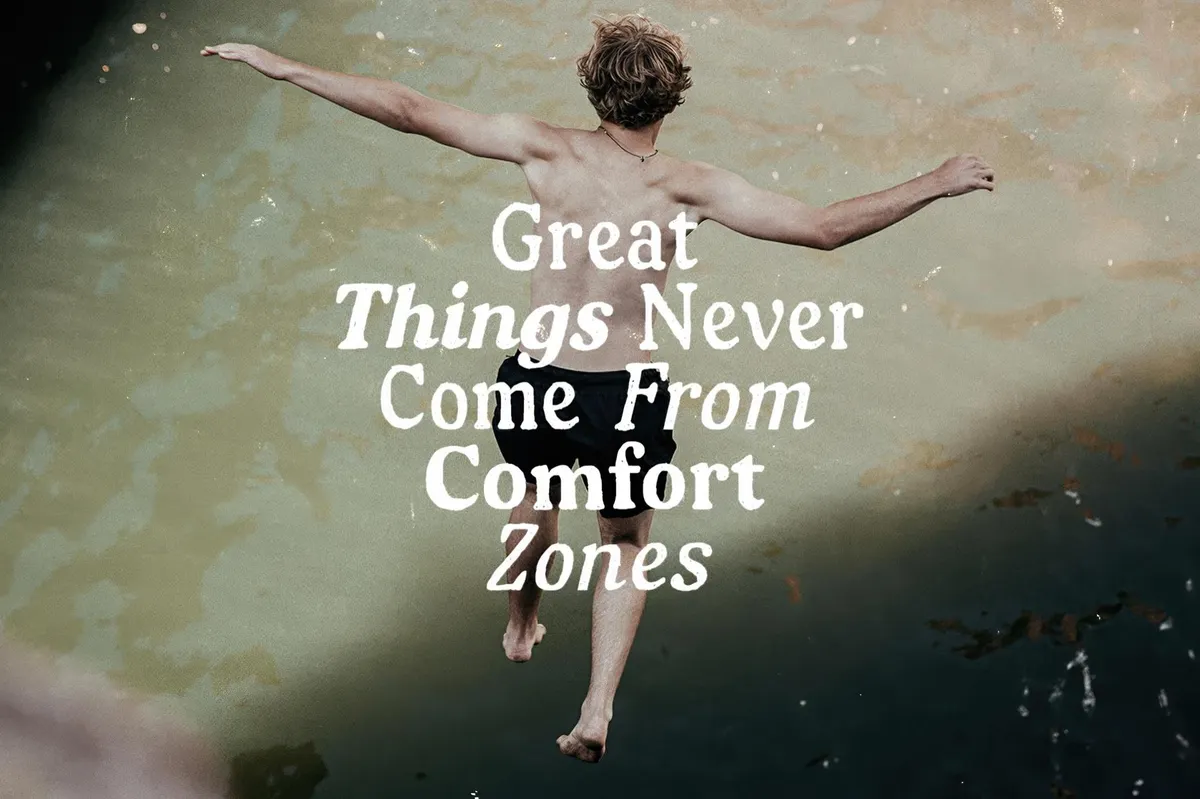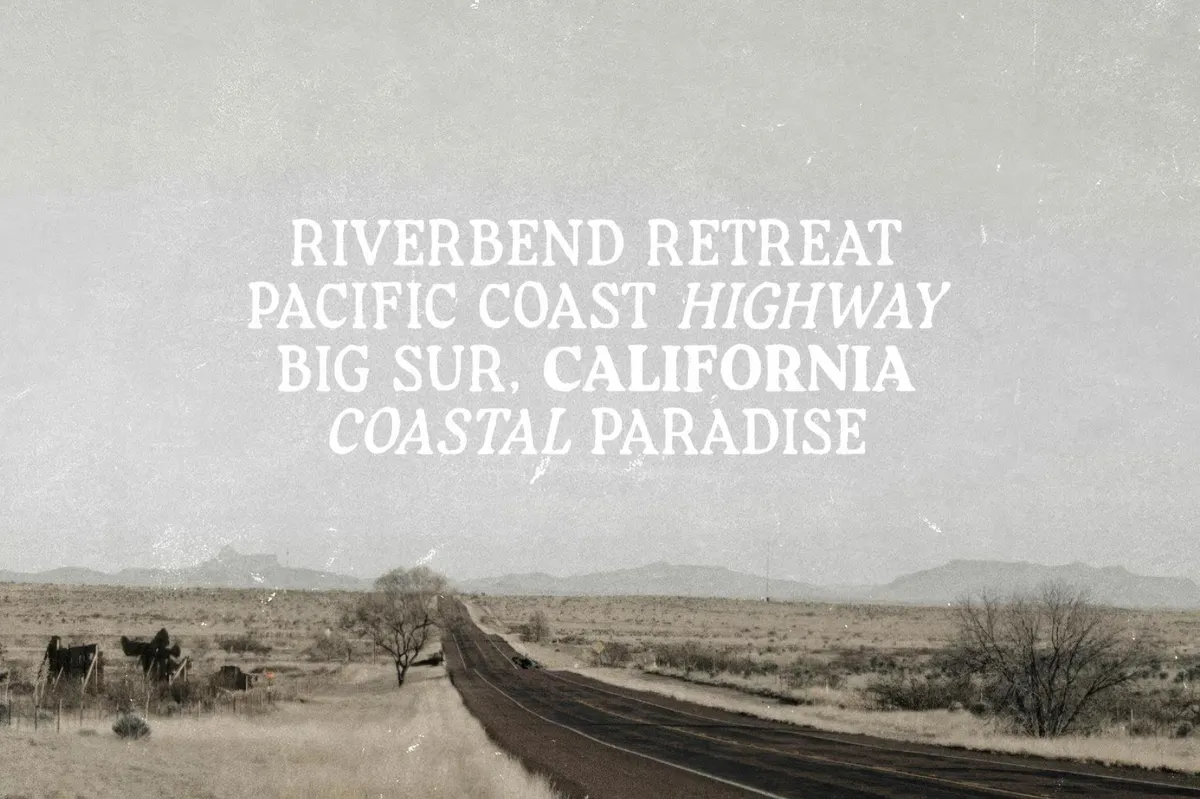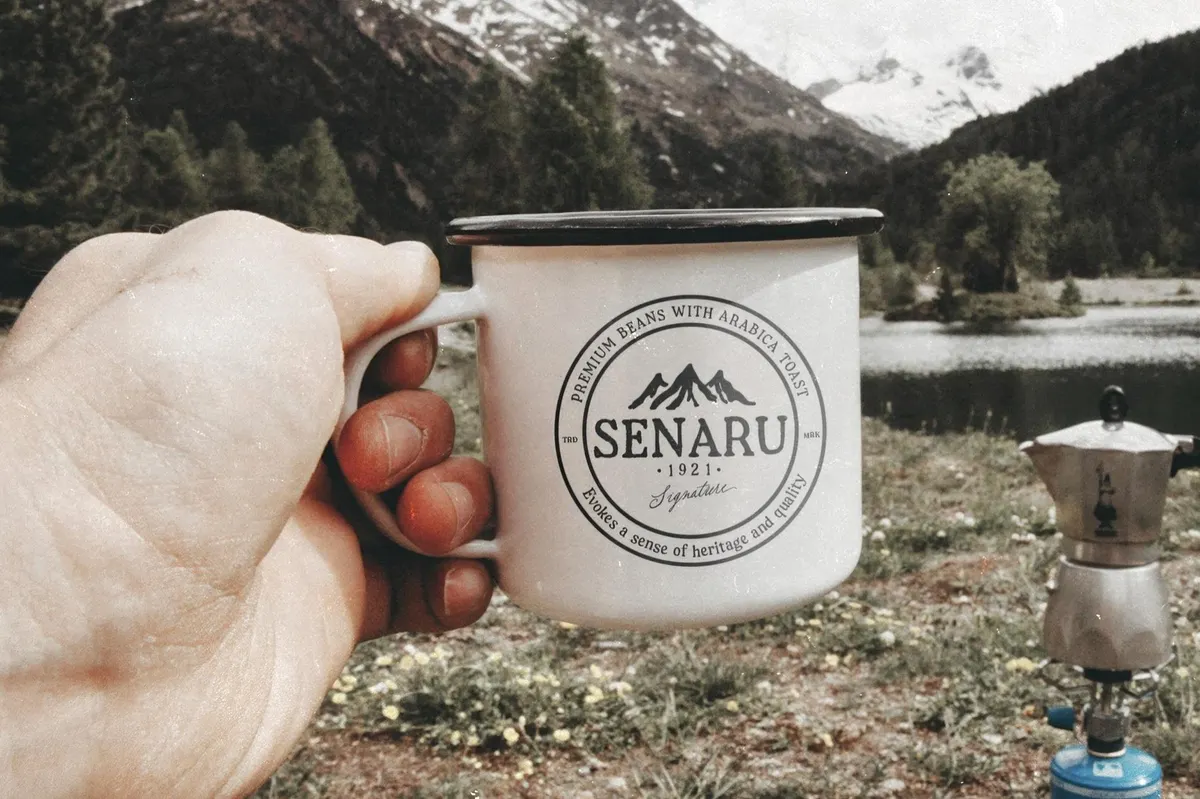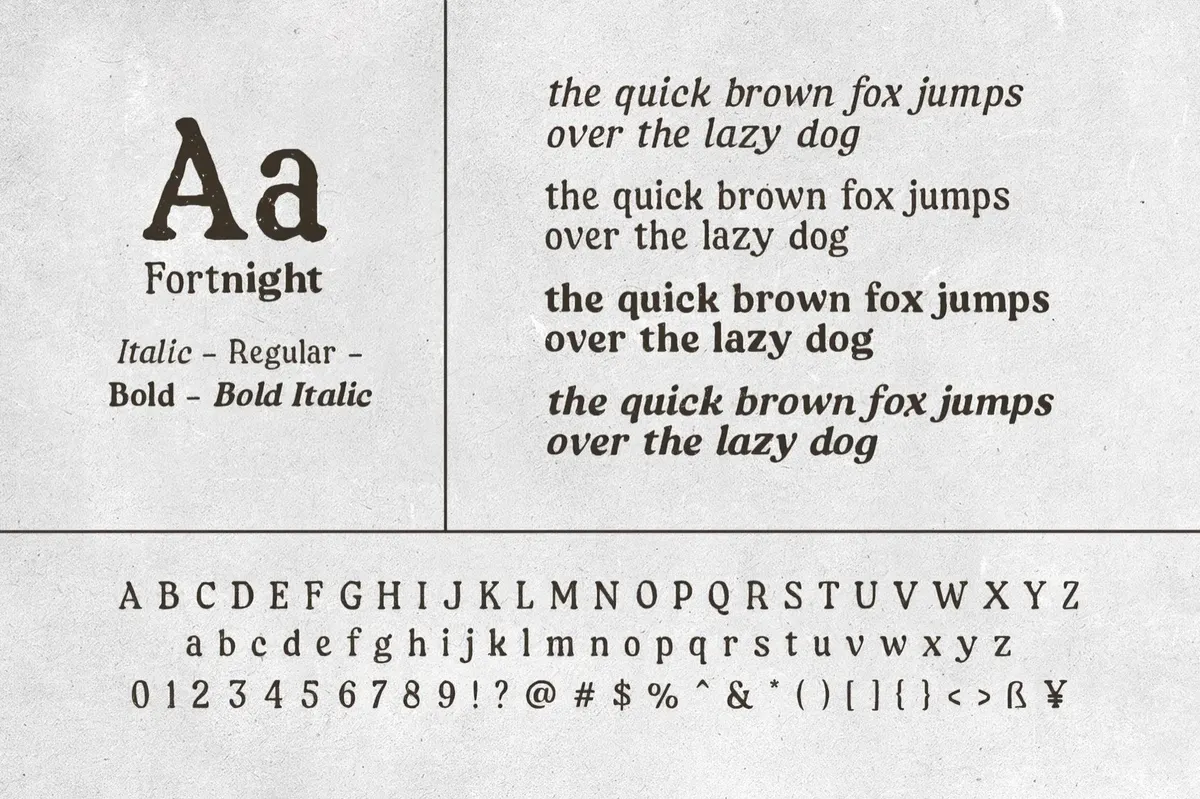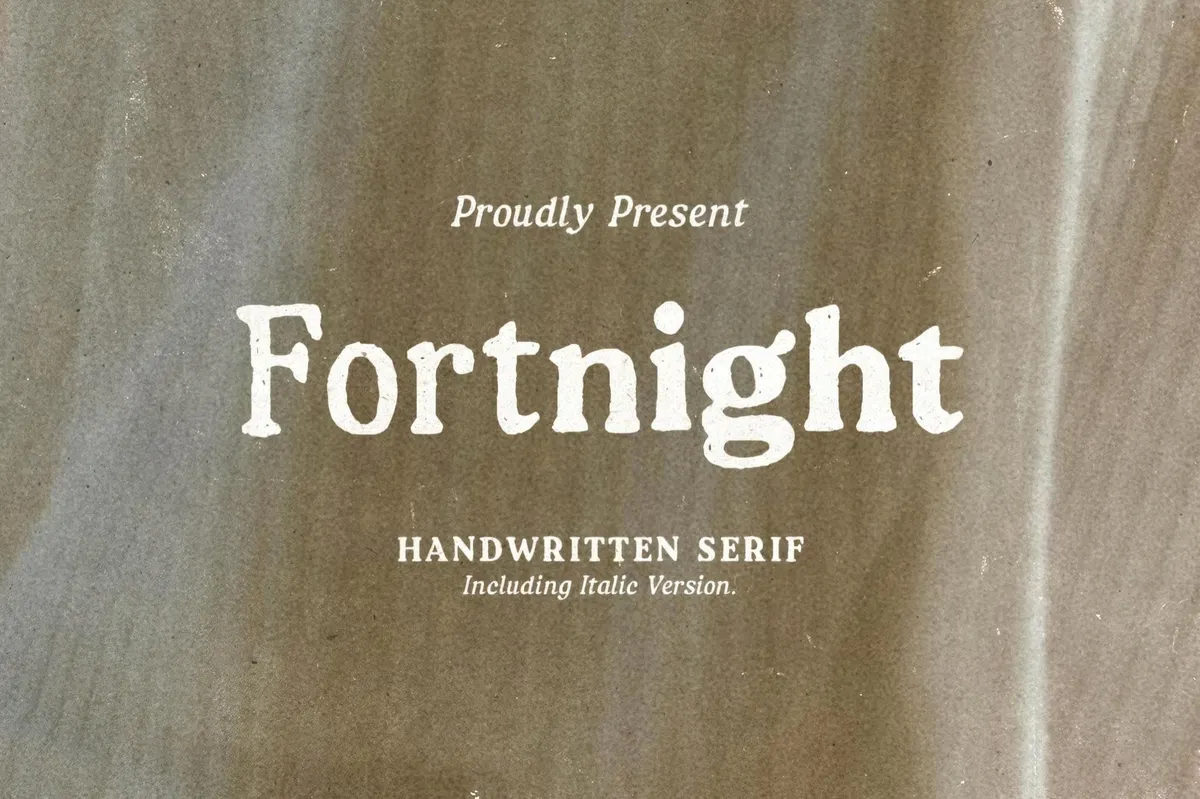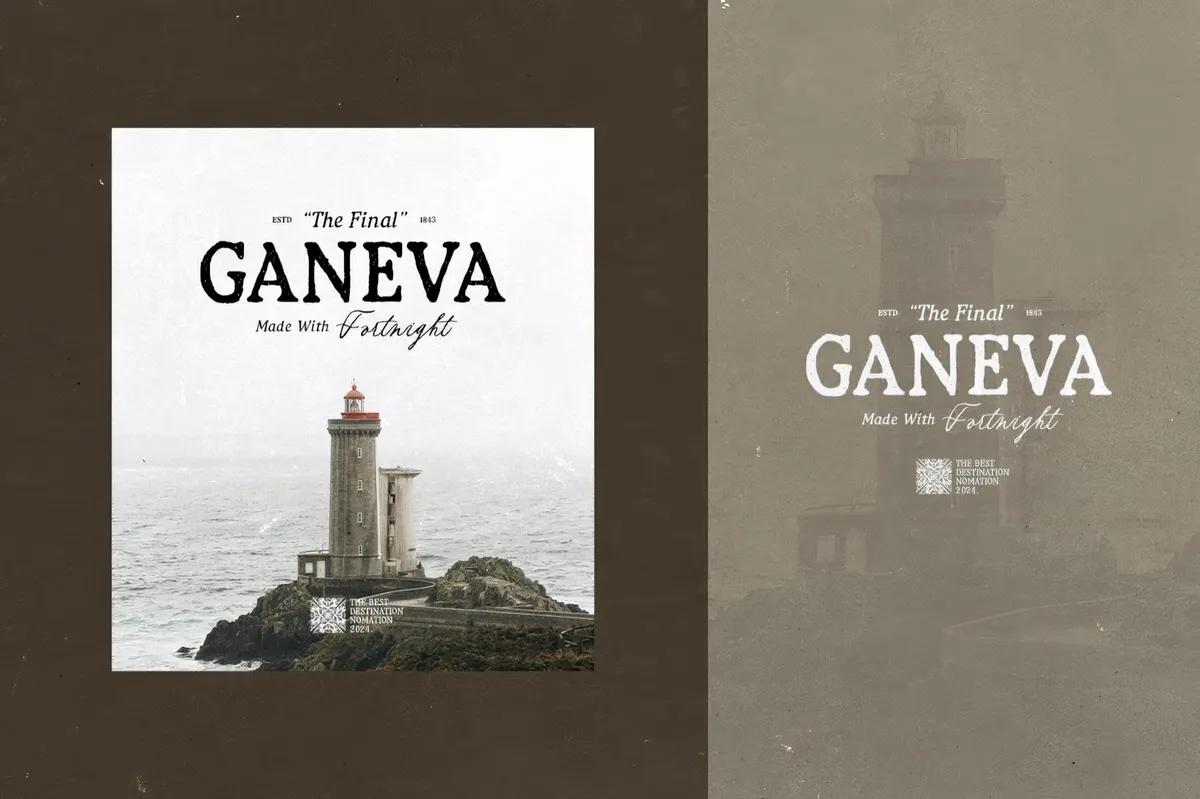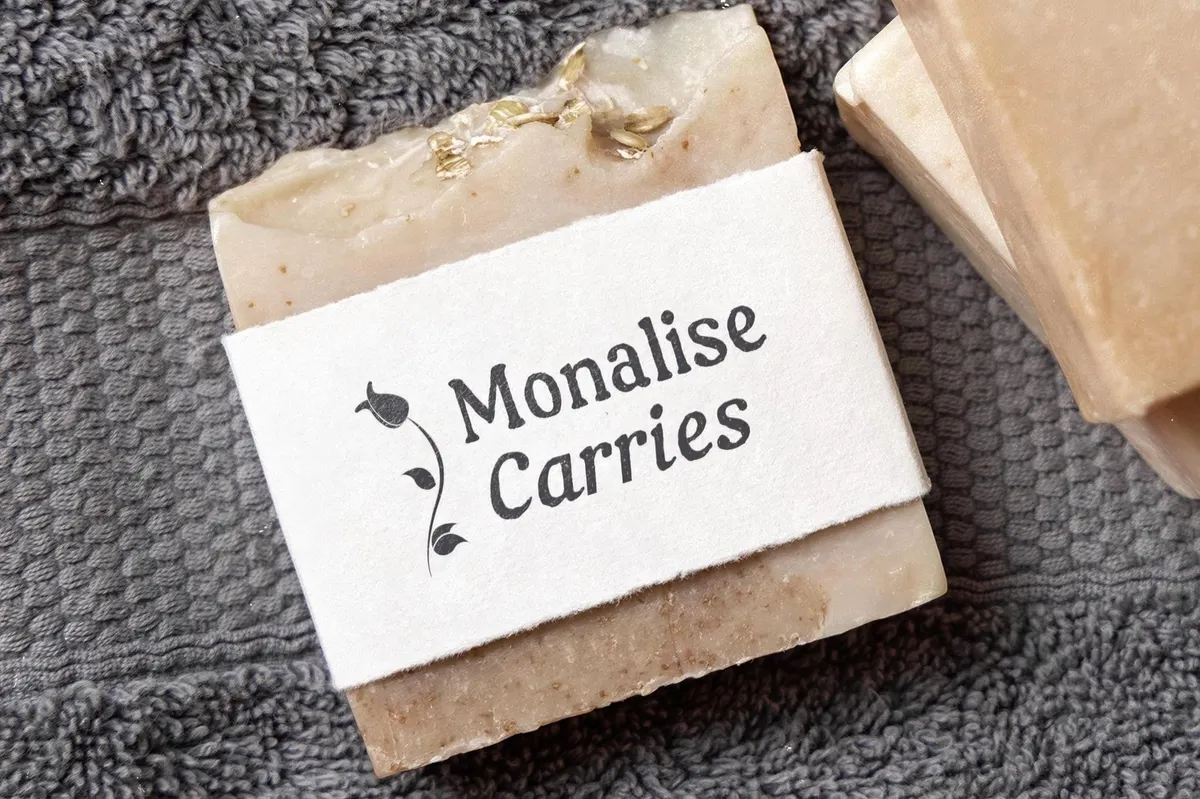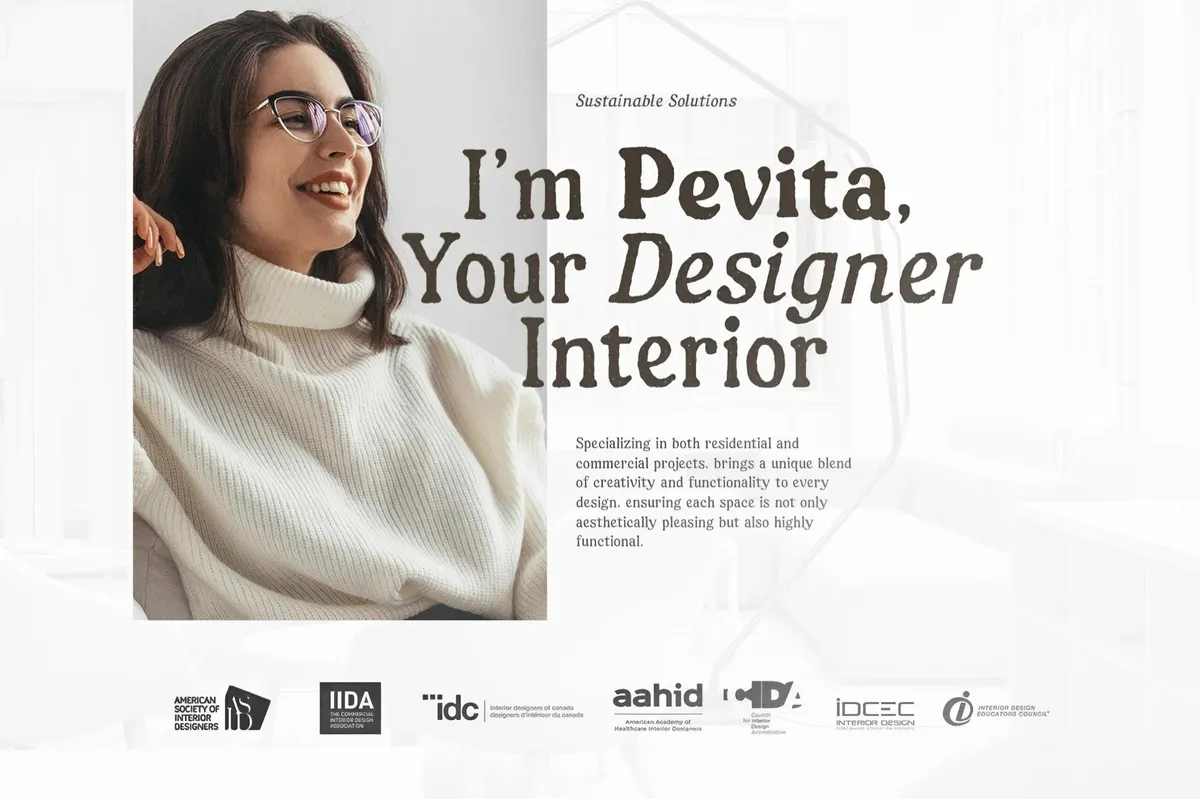
Fortnight — Handwritten Serif Family
Fortnight feels like something you’d stumble upon in an old bookstore — weathered, textured, and full of vintage character. This hand-drawn serif family brings just the right touch of rough charm for designs that want to feel grounded, personal, and a little nostalgic. It makes a perfect choice for designing packaging, posters, or editorial titles, as Fortnight gives you four expressive styles — Regular, Italic, Bold, and Bold Italic — to play with. With multilingual support, and a full set of uppercase and lowercase letters, numerals, and punctuation, it's got the flexibility you need to craft a story with soul.